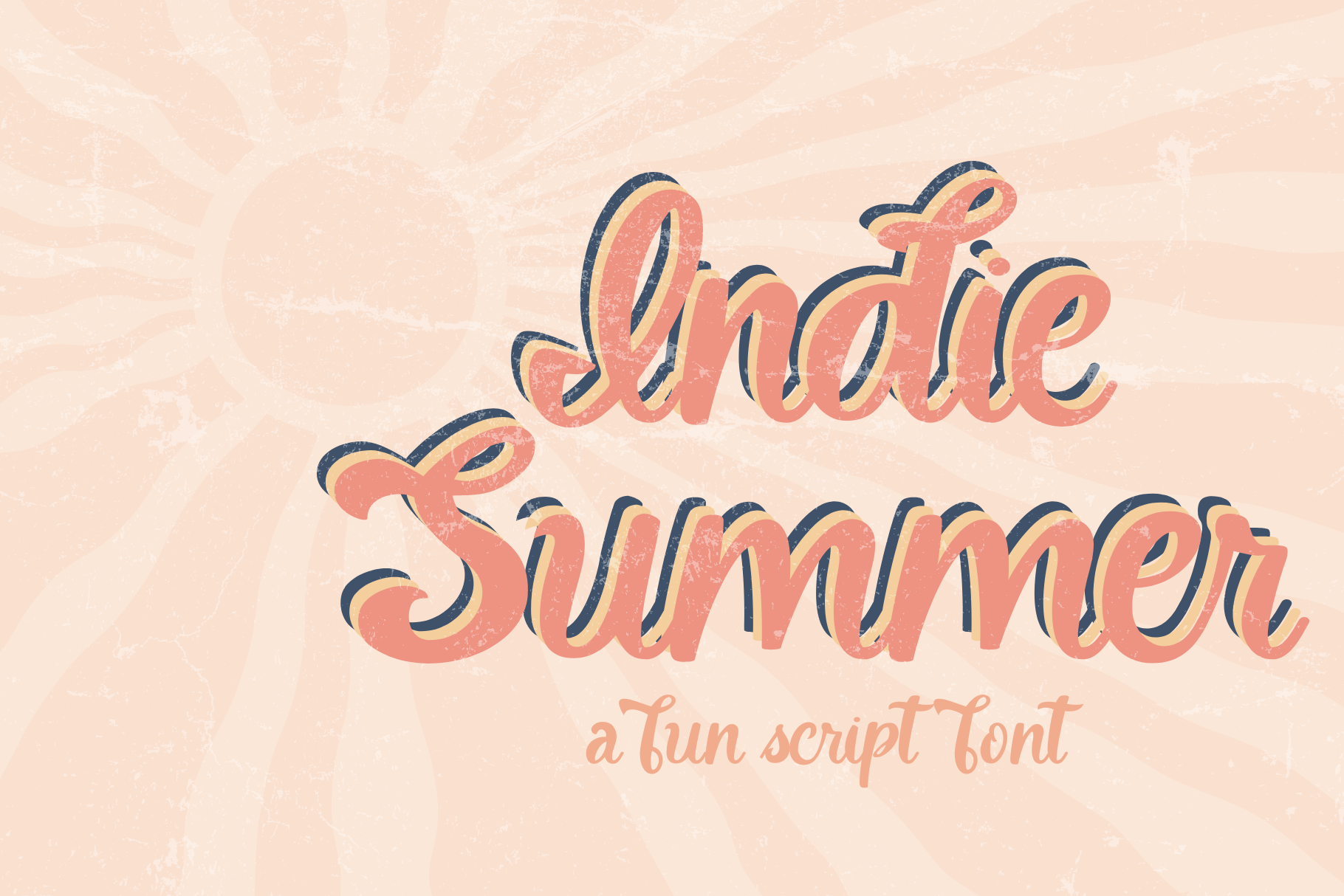
Indie Summer, Cute Retro Font
Indie summer is a fun retro font with flourishes that is perfect for fun summer tank tops, tumblers, stickers, and much more. This fun vintage font includes swashes ligatures and alternates and can be used in any program that supports open-type fonts. Whether you're creating cards, scrapbooking, or working on SVG files, this font works perfectly with Cricut, Goodnotes, Procreate, & more.Get ready to impress with our amazing Cricut font collection and unlock endless possibilities for your artistic endeavors!